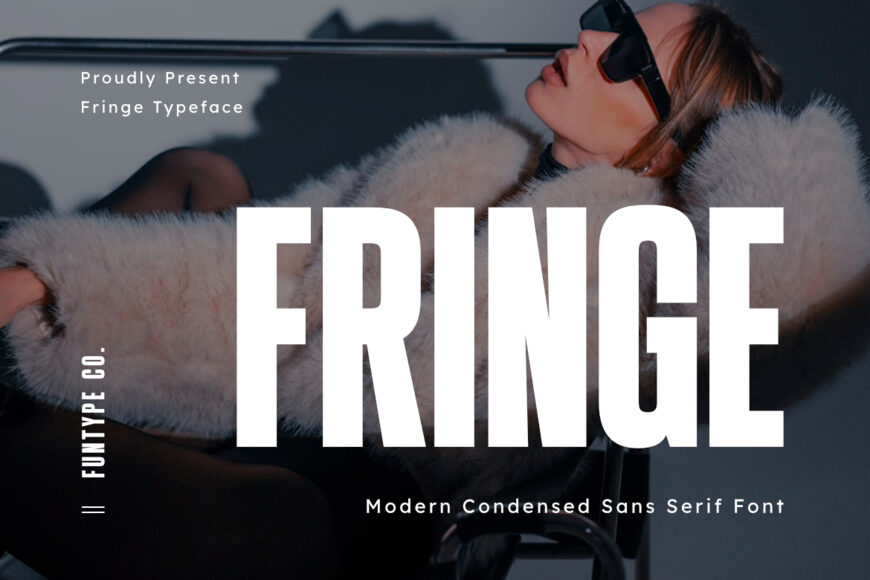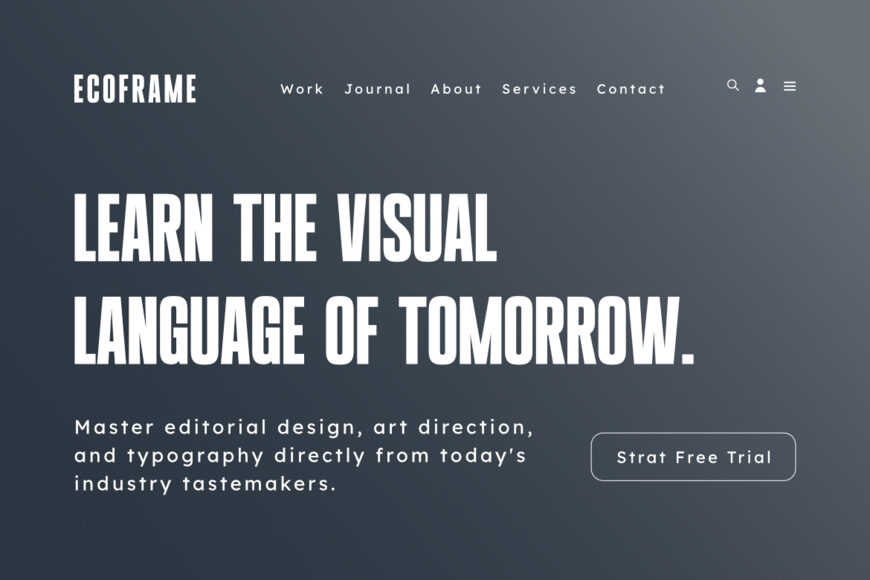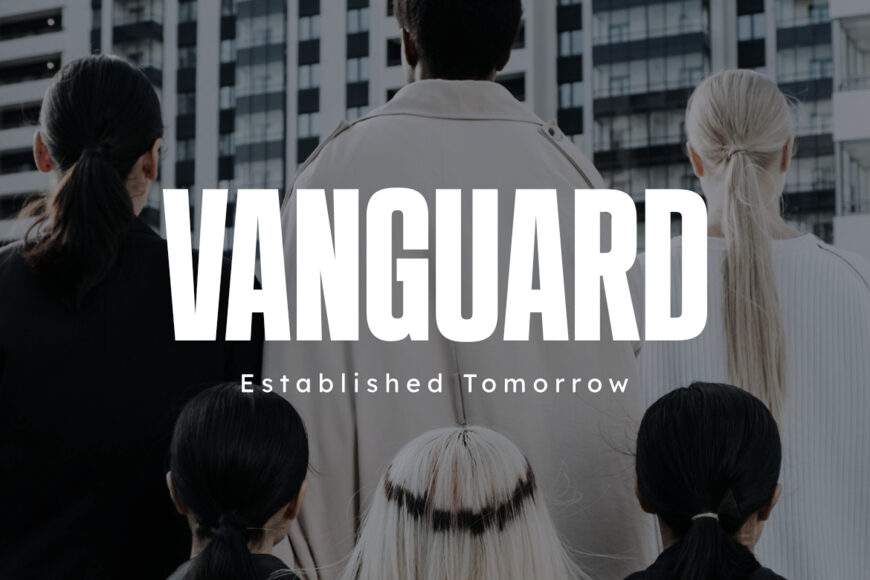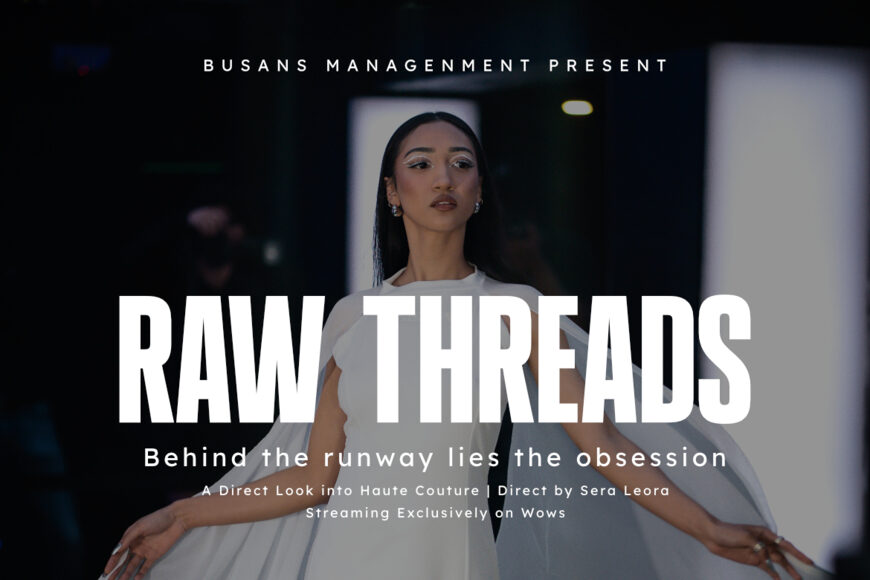
Fringe is a sophisticated, bold, and modern condensed sans serif font, engineered to bring an elegant editorial presence, tall space-saving geometry, and high-end display aesthetic to contemporary graphic layouts.
Featuring a sleek vertical silhouette, heavy block proportions, and refined linear cuts, Fringe introduces a luxury magazine presence, premium cosmetic branding, high-concept architectural identity, and prominent digital media presentation designed to claim absolute visual focus.